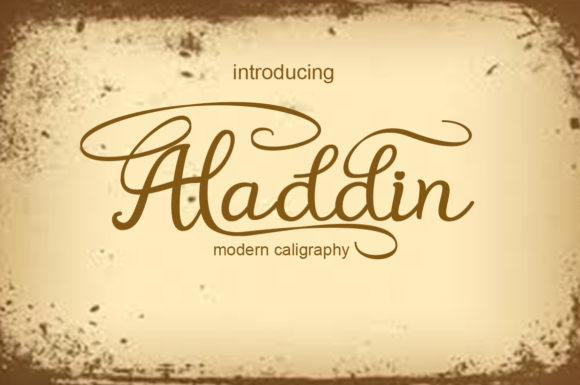
Discover the Enchanting Aladdin Font: A Treasure for Designers and Crafters
Are you ready to add a touch of magic to your designs? Look no further than the captivating Aladdin Font. This thin lettered and graceful script font is sure to ravish your senses and inspire your creativity. With its elegant style and versatility, Aladdin Font is the perfect addition to any designer’s or crafter’s toolkit.
The Charm of Aladdin Font
Aladdin Font boasts a unique and sophisticated design that is sure to enchant your audience. Its thin letters and flowing script style evoke a sense of luxury and refinement, making it ideal for a wide range of design projects. Whether you’re creating wedding invitations, branding materials, or digital content, Aladdin Font is sure to add a touch of elegance and sophistication.
PUA Encoding: Unlocking Endless Creative Possibilities
One of the standout features of Aladdin Font is its PUA (Private Use Area) encoding. This means that you can access all of the glyphs and swashes with ease, giving you unparalleled creative freedom. With PUA encoding, you can mix and match different characters and swashes to create unique and eye-catching designs that showcase your personality and style.
Endless Design Possibilities with Aladdin Font
So, what can you create with Aladdin Font? The possibilities are endless! Here are a few ideas to get you started:
- Wedding Invitations: Create beautiful and elegant wedding invitations that set the tone for a magical and unforgettable celebration.
- Branding Materials: Use Aladdin Font to create stunning branding materials, such as logos, business cards, and letterheads, that reflect your brand’s personality and style.
- Digital Content: Add a touch of sophistication to your digital content, including social media graphics, blog posts, and email newsletters.
- Stationery: Create gorgeous stationery, including notebooks, journals, and greeting cards, that showcase your creativity and flair.
Why Choose Aladdin Font?
So, why should you choose Aladdin Font for your design projects? Here are just a few reasons:
- Unique and Eye-Catching: Aladdin Font is a one-of-a-kind font that is sure to grab attention and leave a lasting impression.
- Versatile: With its elegant and sophisticated design, Aladdin Font can be used for a wide range of design projects, from wedding invitations to branding materials.
- Easy to Use: Aladdin Font is PUA encoded, making it easy to access all of the glyphs and swashes and create stunning designs.